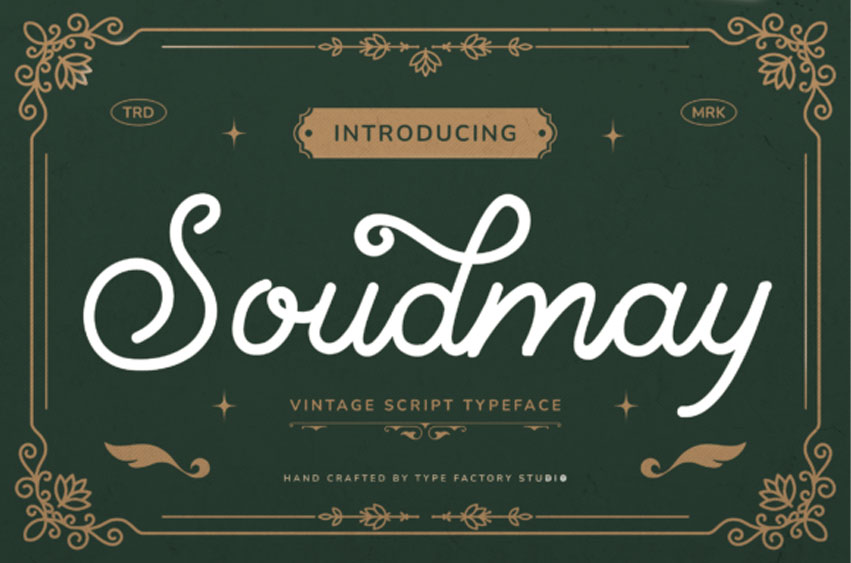
Soundmay Font is a vintage script typeface inspired by classic hand-lettered signage and retro branding styles. These features allow the typeface to be used across various creative applications such as branding identities, product packaging, signage, posters, apparel graphics, and social media layouts.
The typeface works particularly well for vintage branding, handwritten logos, retro poster titles, and merchandise graphics where a flowing script style is desired.